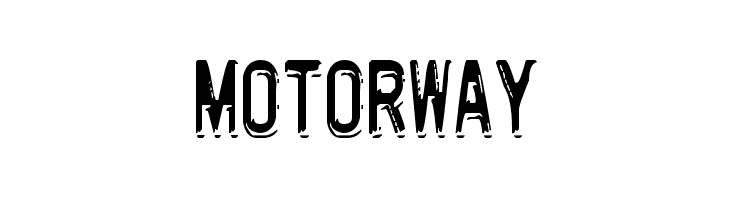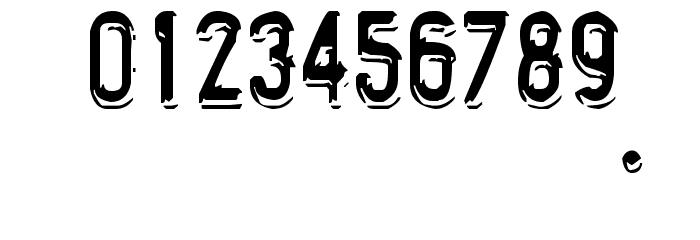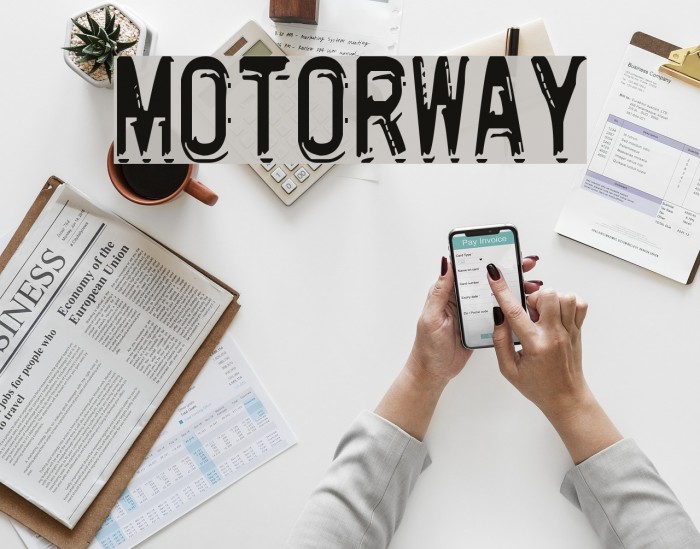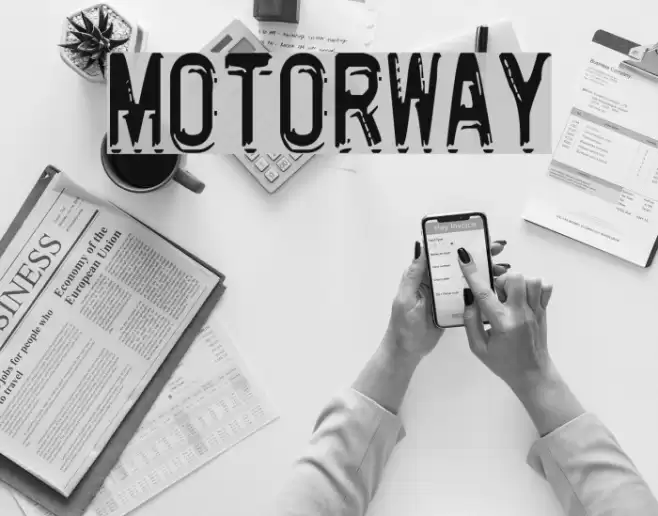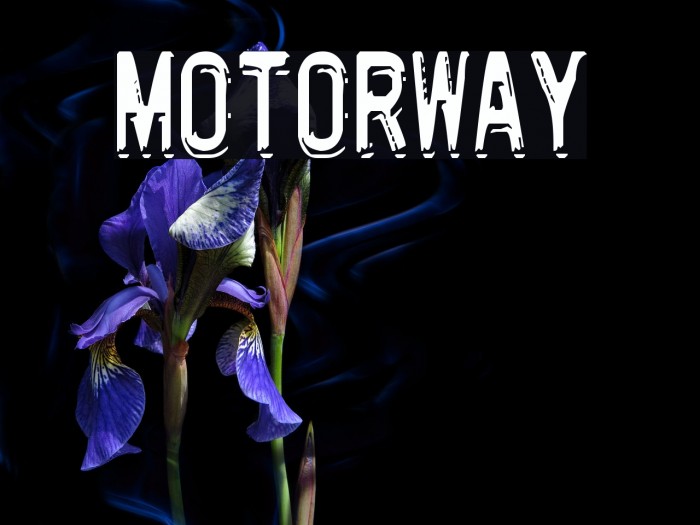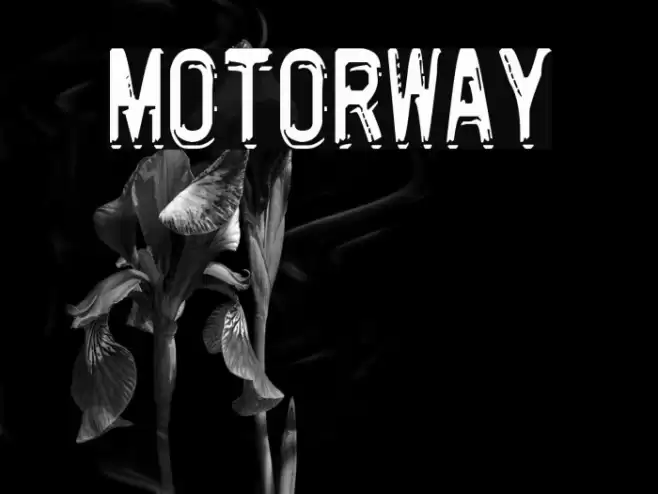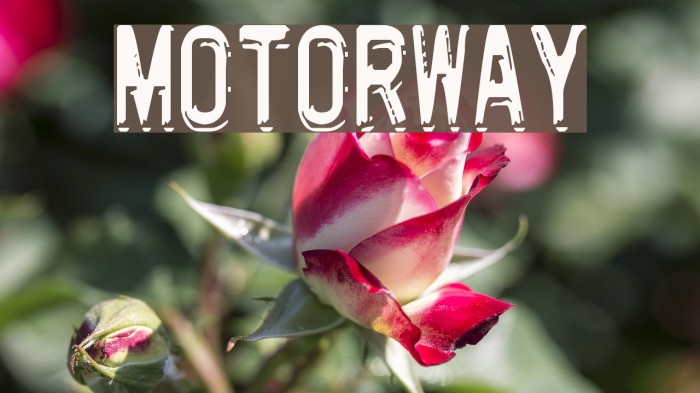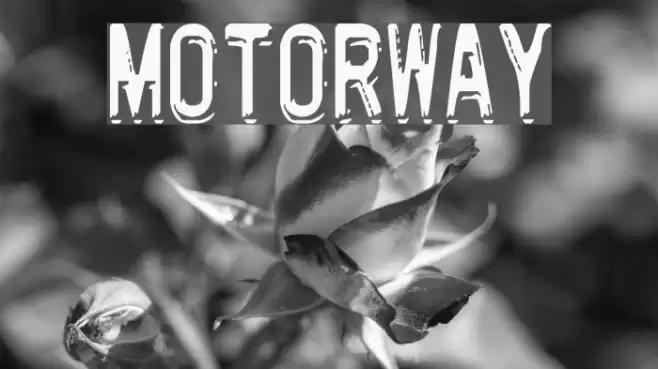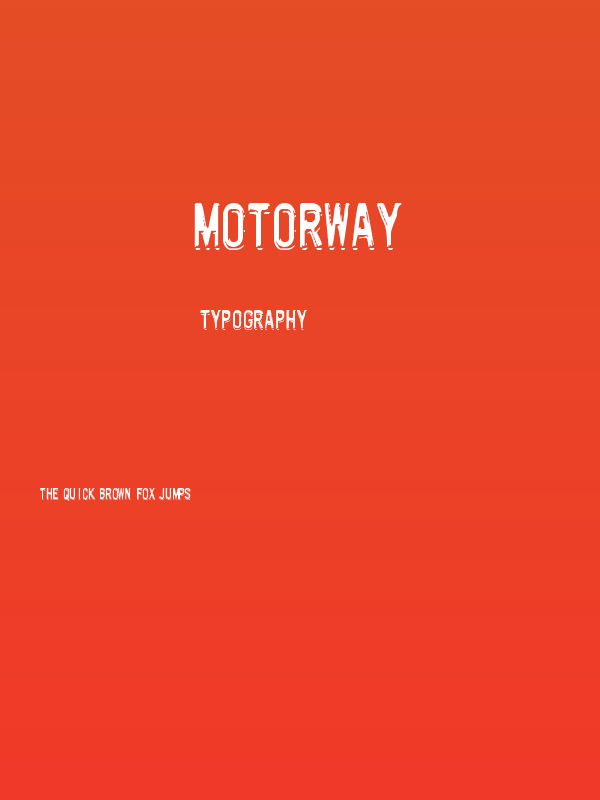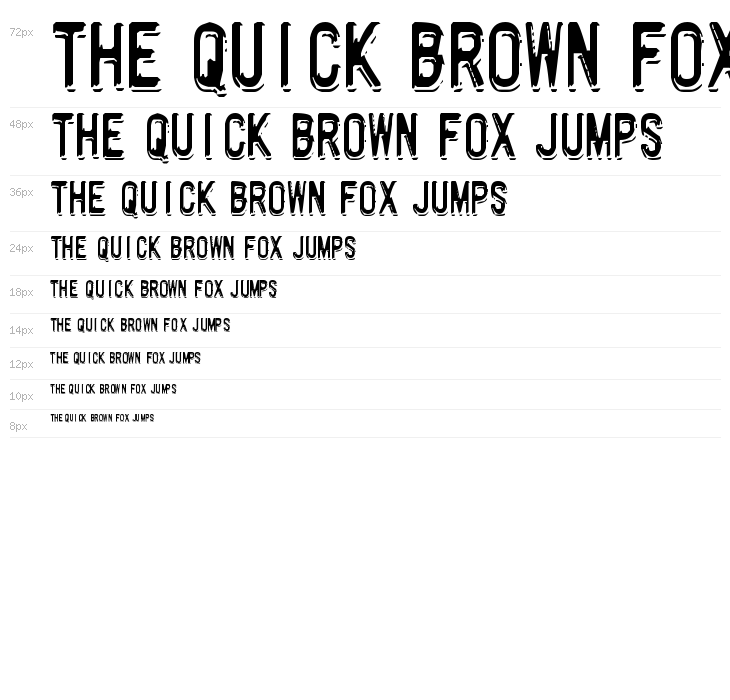
Motorway Font
Motorway Description
This font features a bold, industrial design with a distinctive shadow effect that gives it a three-dimensional appearance. The uppercase letters are strong and impactful, making it ideal for attention-grabbing headlines. The characters have a uniform width, contributing to a cohesive and structured look. The shadow effect adds depth and a sense of movement, reminiscent of vintage signage or retro advertisements. The numbers and punctuation marks follow the same style, ensuring consistency across all characters.
| Proposed Projects | Ideal for vintage-themed posters, retro advertisements, signage, and branding projects that require a bold statement. |